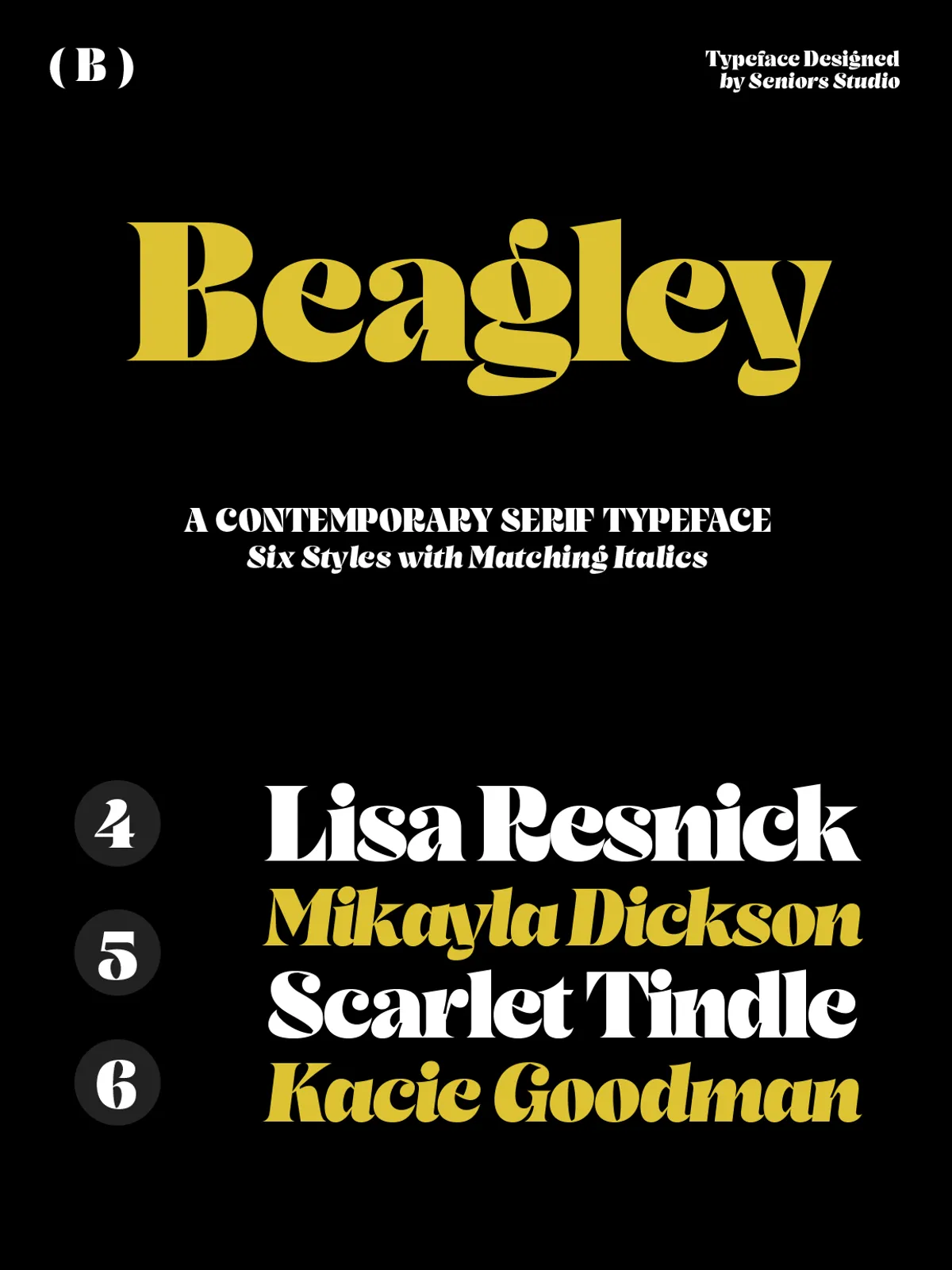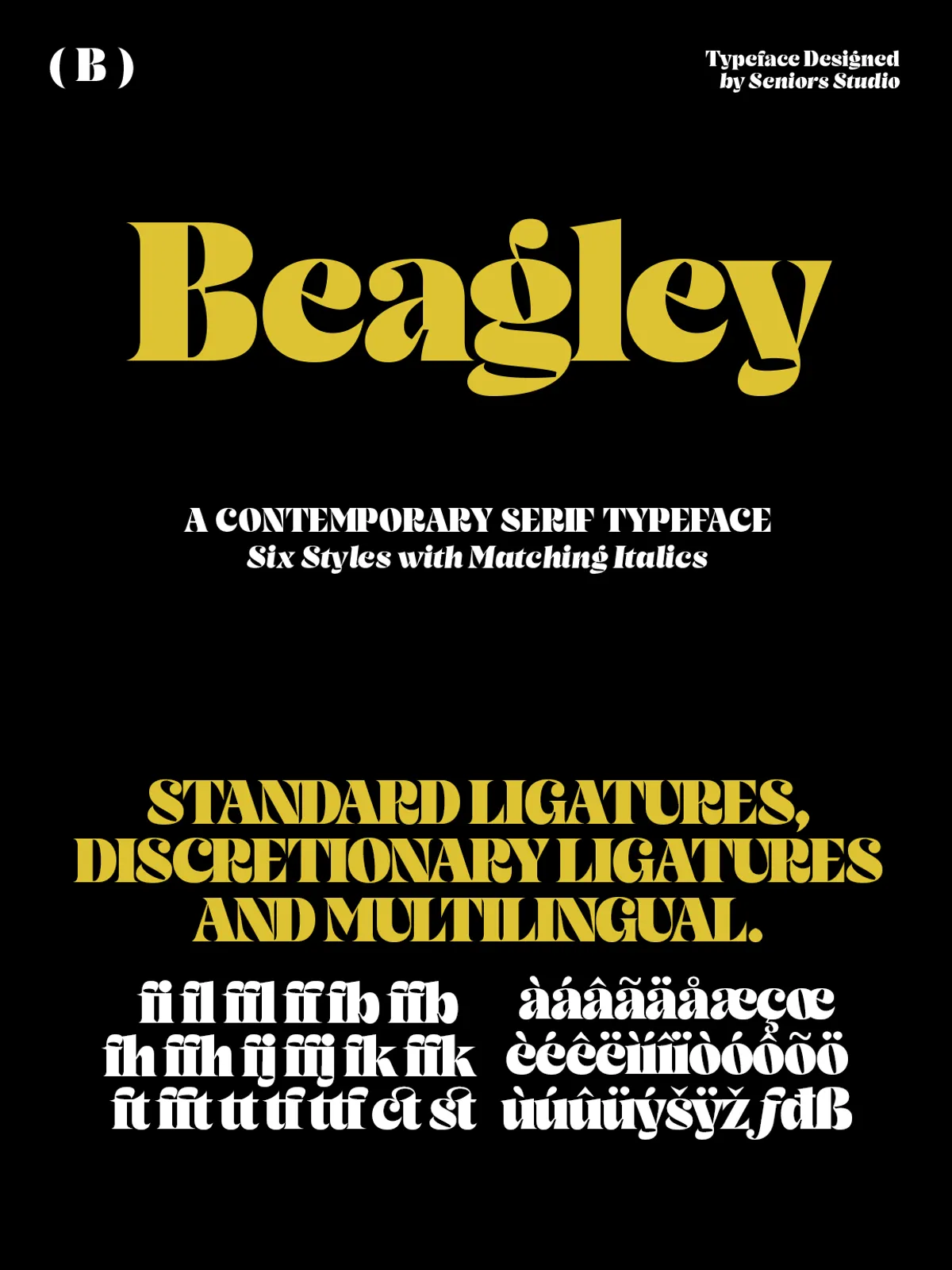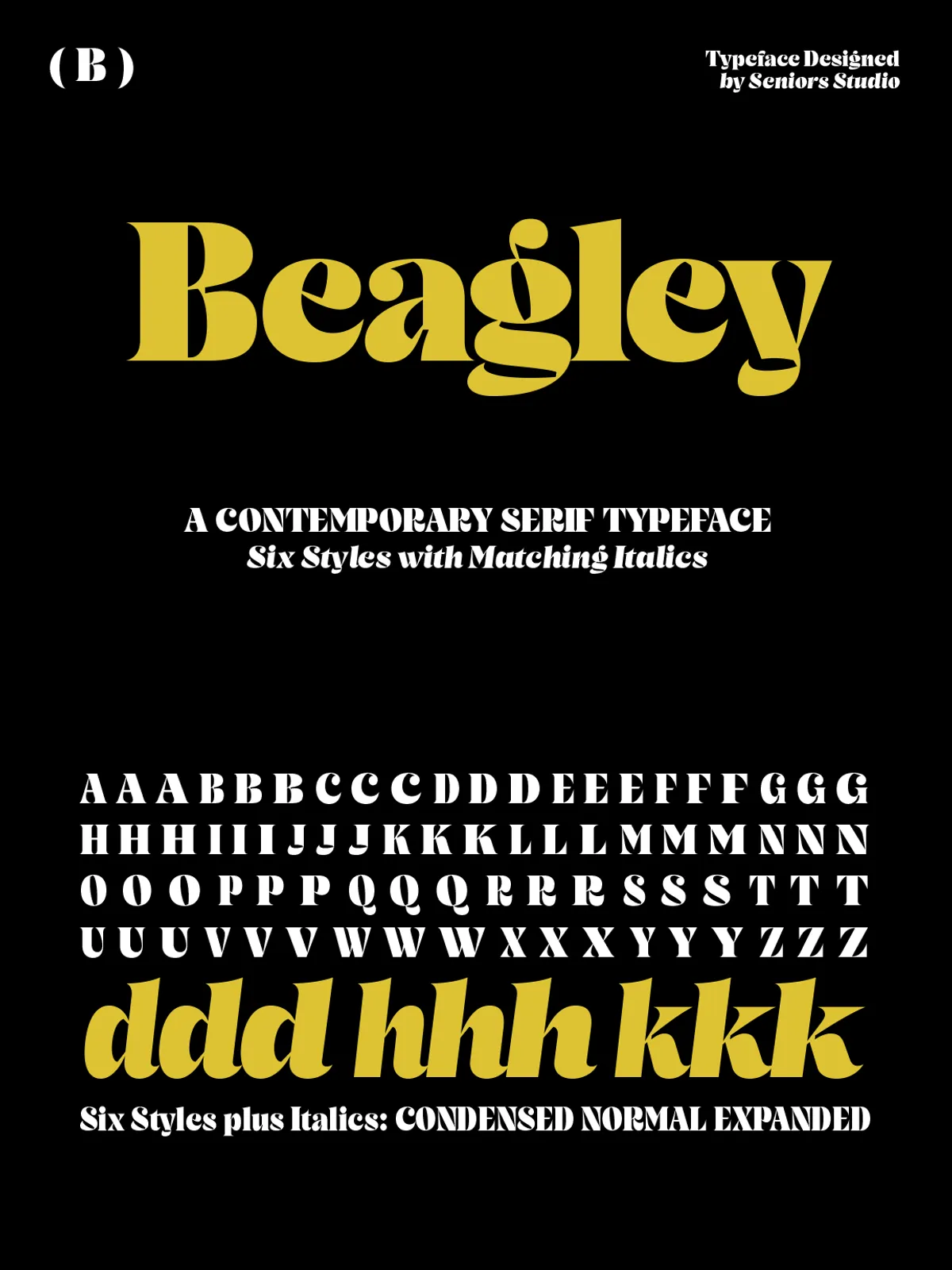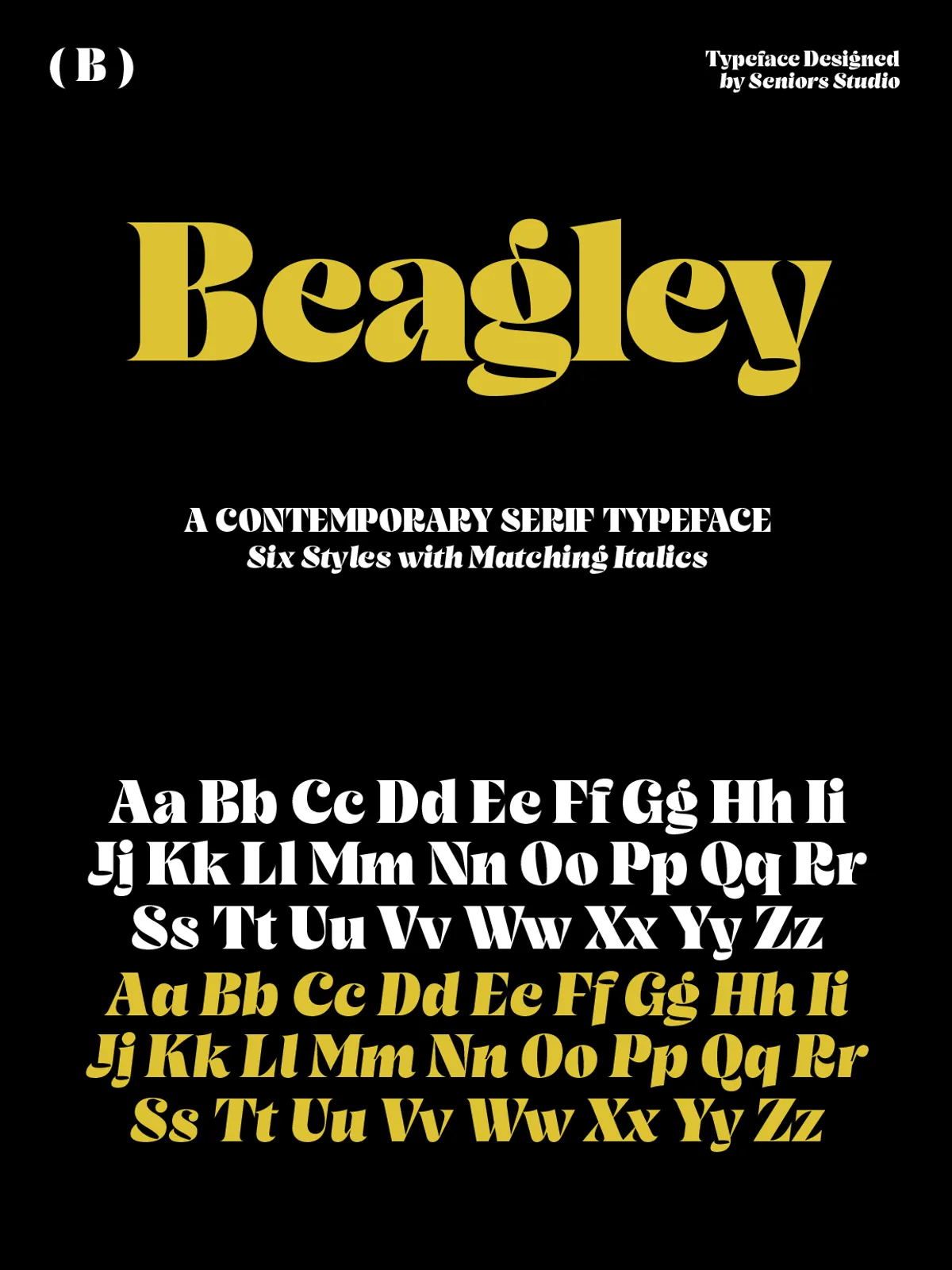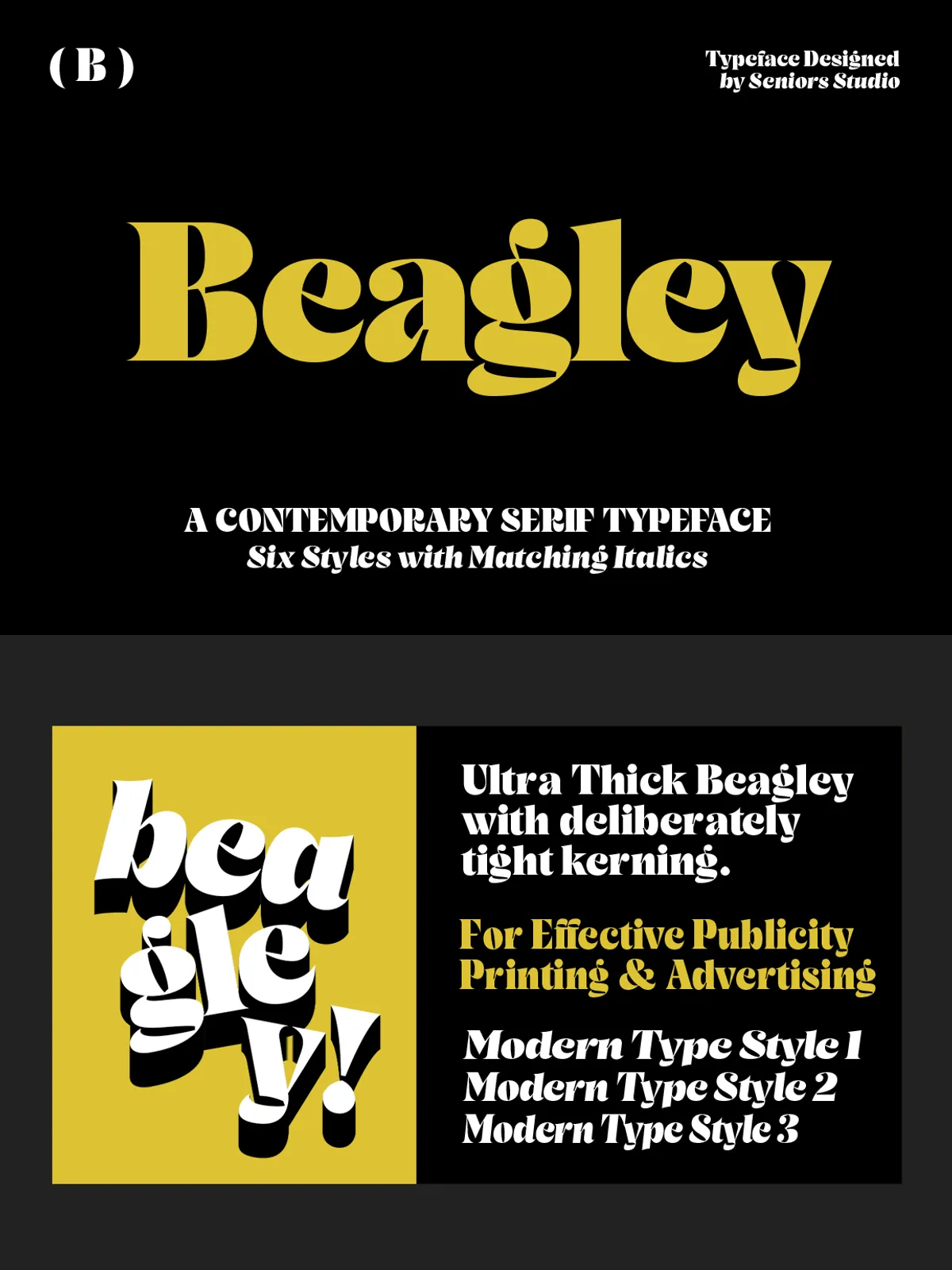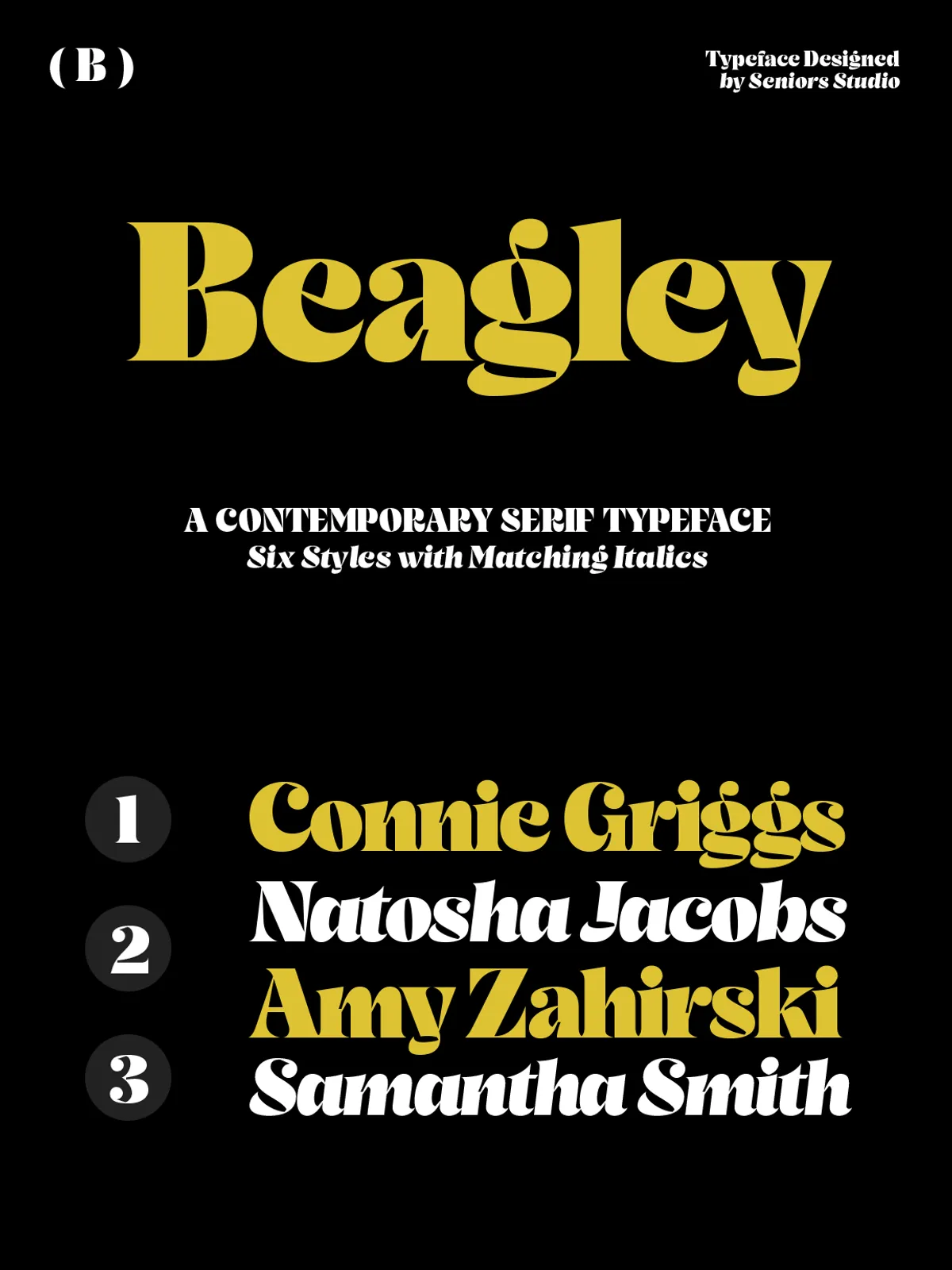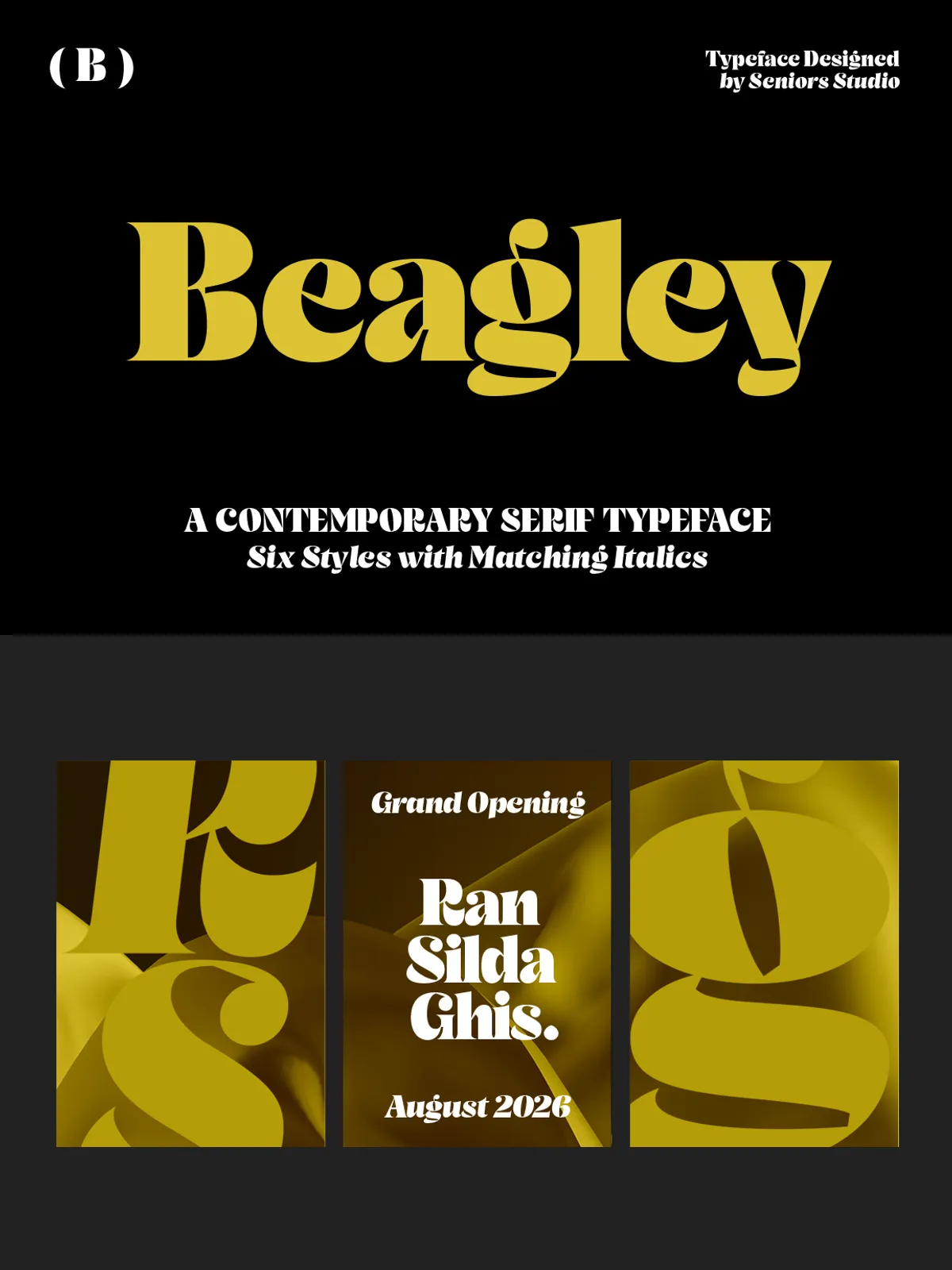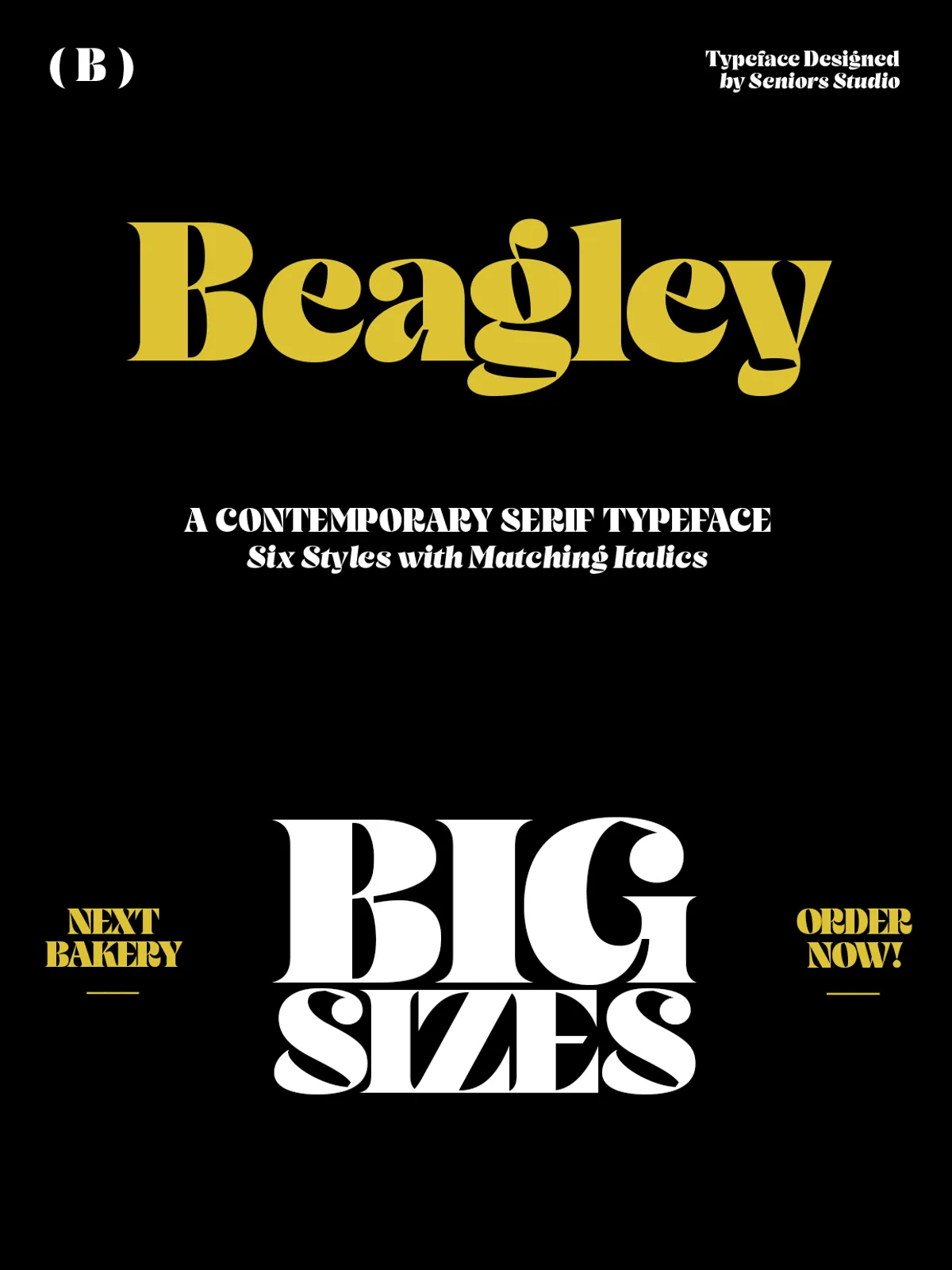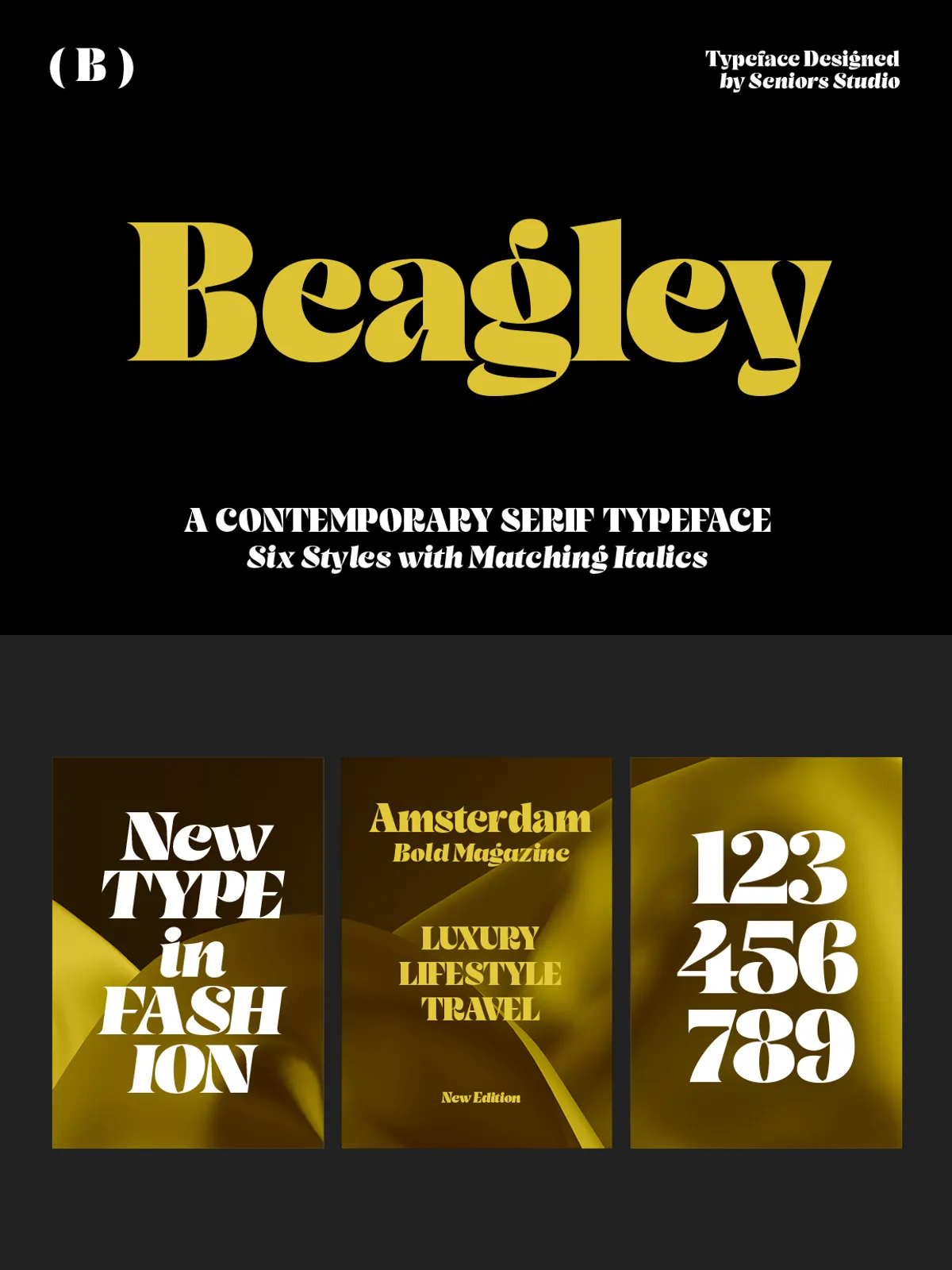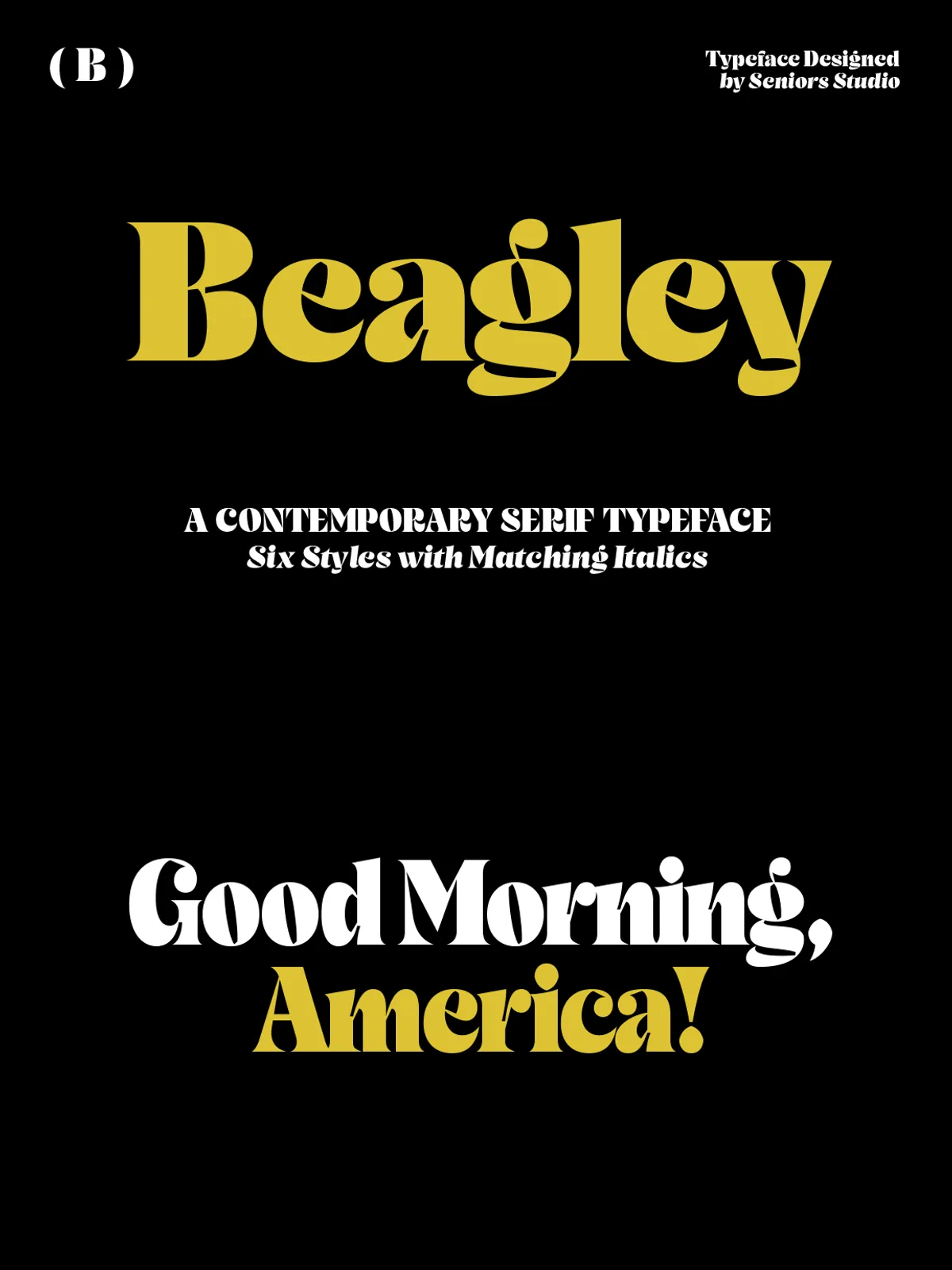
Introducing Beagley Display, a modern serif typeface created to command attention in print, advertising, and high-impact visual storytelling. This isn’t just a font—it’s a design statement. With deliberately tight kerning, thoughtful stroke dynamics, and a humanist warmth, Beagley Display delivers a visually rich, emotionally engaging experience that sets your brand or publication apart.
Perfect for logotypes, brand identities, fashion editorials, packaging, and magazine layouts, Beagley Display blends artistic flair with professional precision. It transforms ordinary text into captivating visual elements—ideal for campaigns that need to speak with clarity, confidence, and charm.
6 Dynamic Styles for Every Design Need
Beagley Display offers 6 distinct weights and widths—ranging from sleek condensed to expansive and dramatic—plus matching italic variants for enhanced typographic depth. Whether you’re creating a minimalist logo, a bold headline, or an intricate editorial spread, there’s a Beagley style ready to elevate your vision.
- Condensed – Compact and sharp; perfect for space-constrained layouts without sacrificing elegance.
- Normal – The balanced core of the family; ideal for body text, banners, and clear messaging.
- Expanded – Luxuriously wide and powerful, designed to dominate headlines and poster designs.
- Each style includes a complementary Italic version for dynamic contrast and emphasis.
Typography That Breathes Life into Your Design
The tight kerning isn’t just a stylistic choice—it’s a deliberate design decision to create a cohesive, unified flow. Each character connects fluidly with its neighbor, resulting in a cohesive, professional rhythm that draws the eye through the text like a well-composed melody.
Rich Glyph Set for Maximum Flexibility
Beagley Display packs over 250 glyphs, including a comprehensive suite of typographic tools to empower your creativity:
- Standard ligatures – Smooth connections between frequently paired letters (e.g., “fi”, “fl”, “ffi”) for improved readability and style.
- Discretionary ligatures – Optional flourishes for ornamental use in high-end branding and editorial design.
- Special characters – Widely supported punctuation, fractions, currency symbols, and decorative elements.
- Extended Latin support – Full compatibility with languages including French, German, Spanish, Italian, Portuguese, Swedish, Dutch, and more.
Professional-Grade Features for Real-World Workflows
Advanced OpenType Features:
- OpenType Standard ligatures and stylistic alternates
- Case-sensitive forms for elegant small caps integration
- Contextual alternates for natural-looking text flow
- Proper glyph mapping for consistent rendering across software
Build a Brand That Feels Human
Beagley Display isn’t just about looks—it’s about emotional resonance. Its warm, slightly handcrafted feel makes your brand feel approachable, authentic, and memorable. Whether you’re launching a boutique fashion label, designing a luxury magazine, or crafting a bold advertising campaign, Beagley helps you connect with your audience on a deeper level.